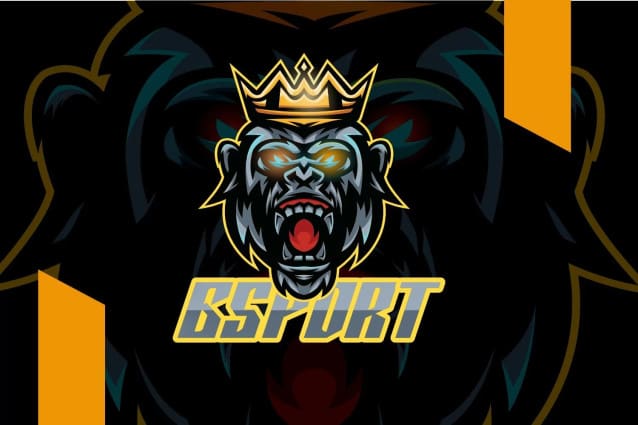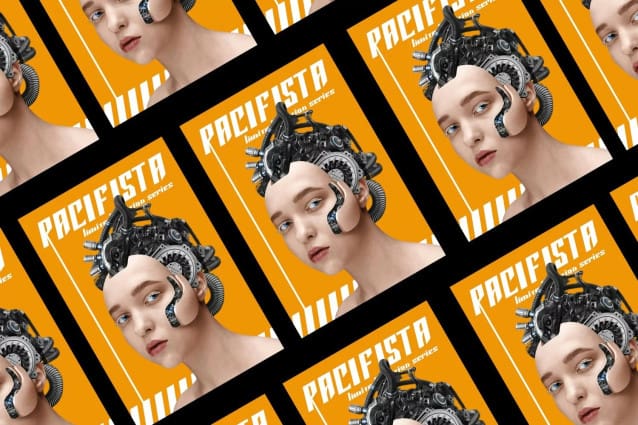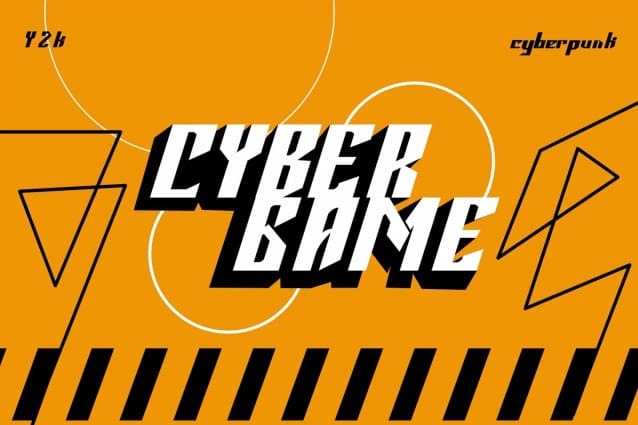
Cybergame Display Font
Cybergame Display Font, a futuristic style inspires Cybergame with bold, strong, and unique styles. This uniqueness perfectly matches your futuristic craft projects such as Y2K, Cyberpunk, and Mecha themes, e-sport logo type and many more. Cybergame also has unique lowercase and uppercase that you can combine and make amazing futuristic work!